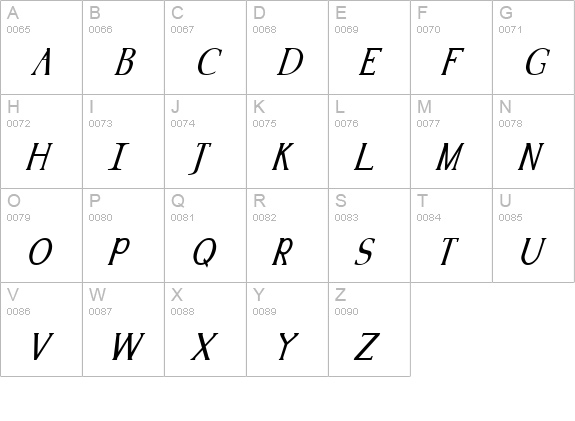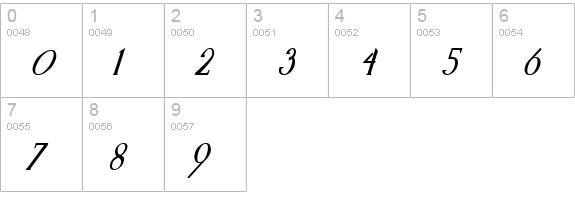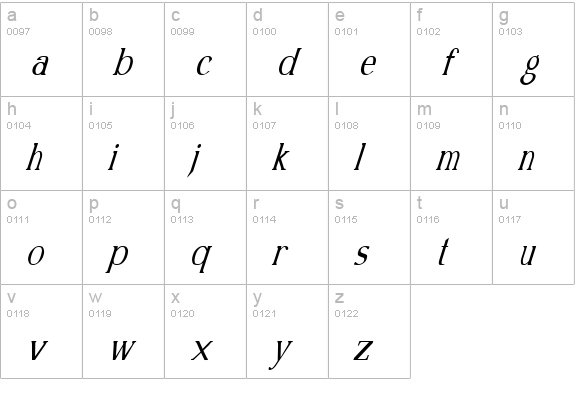
Kennon Italic Font Details
Kennon Italic is a distinctive, italic variant in the Kennon typeface family \xE2\x80\x94 well suited to design and typography projects.
Kennon Italic is a stunning and versatile font that effortlessly combines elegance and modernity. With its sleek and graceful curves, this font adds a touch of sophistication to any design project. Whether you're creating a logo, designing a website, or crafting a captivating invitation, Kennon Italic is the perfect choice to make your text stand out. What sets Kennon Italic apart is not only its exquisite aesthetics, but also its wide range of potential applications. This font is incredibly adaptable, making it suitable for both professional and personal projects. Its clean lines and delicate strokes make it legible at any size, ensuring that your message is always clear and compelling. One of the most appealing aspects of Kennon Italic is that it is free. That's right, this beautiful font can be freely downloaded at FontsMarket.com. Gone are the days of spending a fortune on premium fonts, as Kennon Italic allows you to access its beauty without any cost. This availability makes Kennon Italic a fantastic option for designers on a budget, students, or anyone who simply appreciates high-quality typography without breaking the bank. The versatility of Kennon Italic extends to its compatibility with various design software and platforms. Whether you're using Adobe Photoshop, Illustrator, or InDesign, or even if you prefer to work with online design tools, Kennon Italic seamlessly integrates into your workflow. Its file format ensures seamless installation and hassle-free usage across different devices and operating systems. In addition to its aesthetic appeal, versatility, and cost-effectiveness, Kennon Italic also offers excellent readability. Each character is meticulously crafted, ensuring that your audience can easily consume your message without any distractions. This font's legibility makes it an ideal choice for body text, headlines, or any other text-heavy design elements. In conclusion, Kennon Italic is a free font that effortlessly combines elegance, modernity, and versatility. Its stunning aesthetics, compatibility with various design software, and excellent readability make it an excellent choice for designers and creatives. Download Kennon Italic today from FontsMarket.com and unlock the potential for breathtaking typography in your next project.